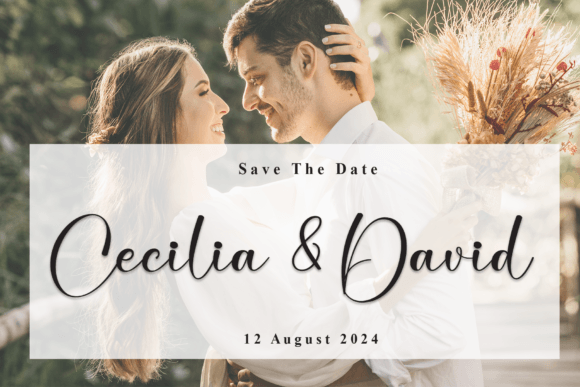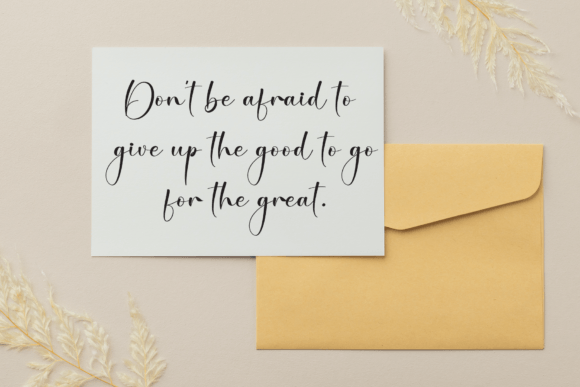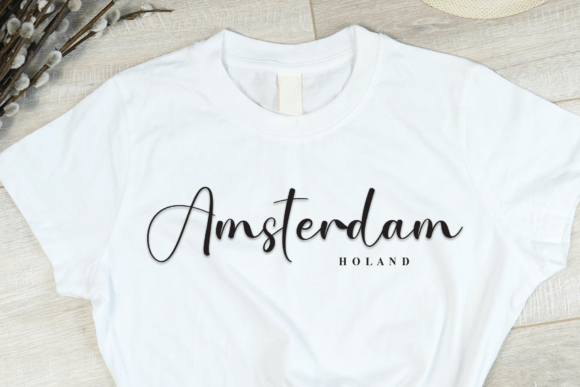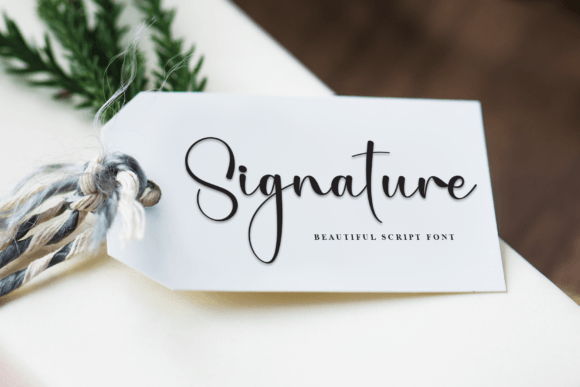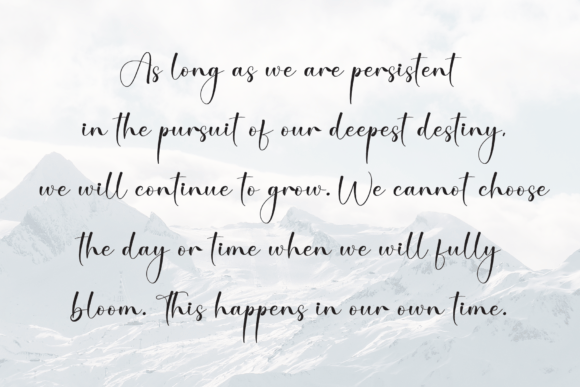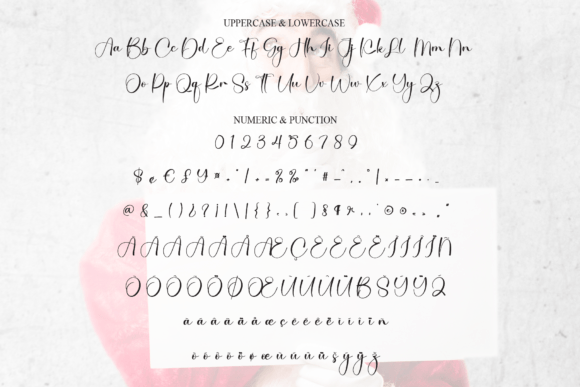
Introduction to Santa Quotes Font Font
Fonts play a crucial role in design, and the Santa Quotes Font font is a typeface that brings both character and versatility to any project. Whether you’re working on a branding project, a website, or a print design, the Santa Quotes Font font offers a unique style that can elevate your work.
Santa Quotes is a fun, handwritten font that captures the playful spirit of Christmas.
With its charming, quirky letters, it adds a festive touch to any holiday project .
Key Features of Santa Quotes Font Font
Why Choose Santa Quotes Font Font?
The Santa Quotes Font font is more than just a typeface – it’s a design tool that helps you communicate your message with style and clarity. Its unique character set and versatile design make it suitable for a wide range of applications, from elegant invitations to bold headlines.
With its carefully crafted letterforms and balanced proportions, the Santa Quotes Font font ensures readability and visual appeal across all mediums.
What makes Santa Quotes Font font special?
The Santa Quotes Font font stands out with its unique design, exceptional readability, and versatility across various design applications.